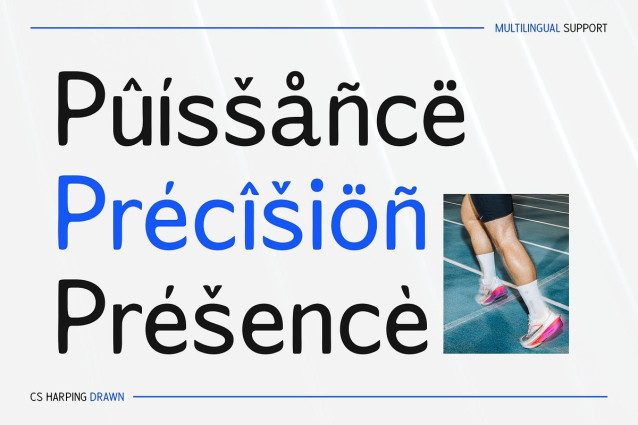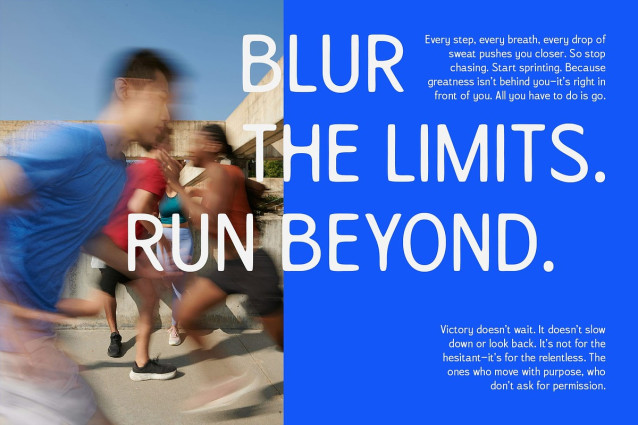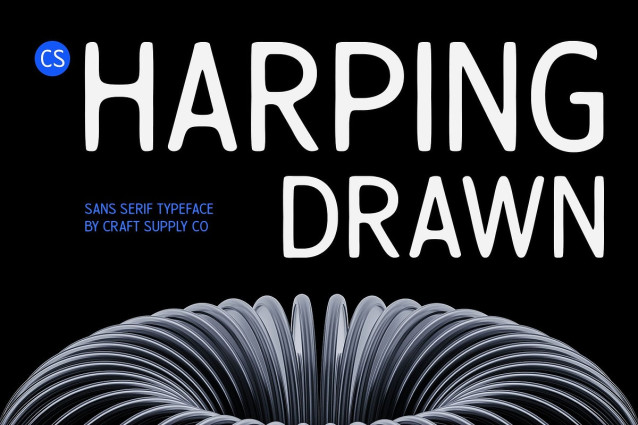
CS Harping Drawn Font
CS Harping Drawn Font – This is a modern sans serif font that blends clean design with geometric precision. Its minimalist structure—defined by sharp lines and balanced proportions—creates a sleek, professional look that’s perfect for today’s forward-thinking visual identities.
Elegant Contemporary Style Rooted in contemporary aesthetics, the font radiates elegance through its simplicity. It feels refined yet unpretentious, making it suitable for high-end branding, editorial design, digital interfaces, and more. The clarity of its form ensures legibility while maintaining visual sophistication.
Drawn Effect for a Warm, Artistic Feel The unique characteristic of this modern font lies in its subtle drawn effect, which introduces a hand-crafted, organic texture into the otherwise clean design. This slight imperfection adds warmth and depth, making the font feel more personal and engaging. The drawn texture enhances its visual appeal, giving it a distinctive look that stands out in a sea of sterile digital fonts
Ideal for Clean Yet Expressive Design Whether used in branding, modern publications, or creative portfolios, this contemporary font offers a unique balance of precision and personality. It’s a versatile choice for designers seeking a font that’s both clean and character-rich, minimalist yet expressive.